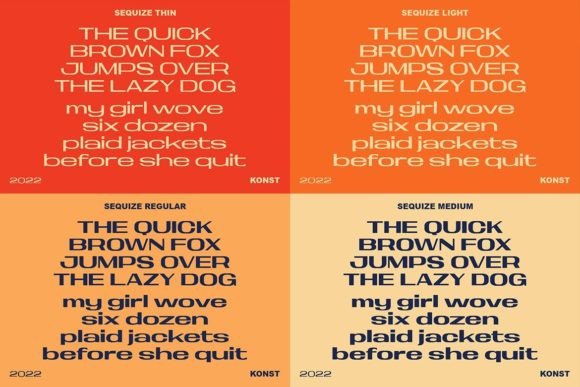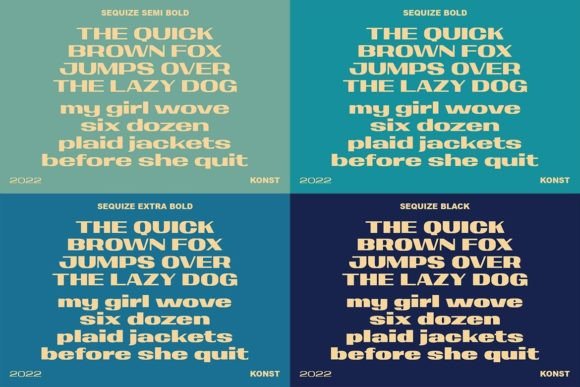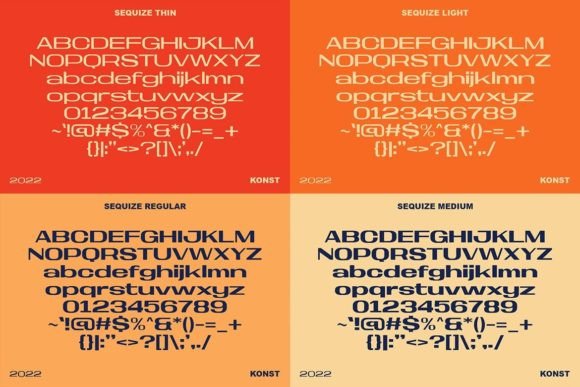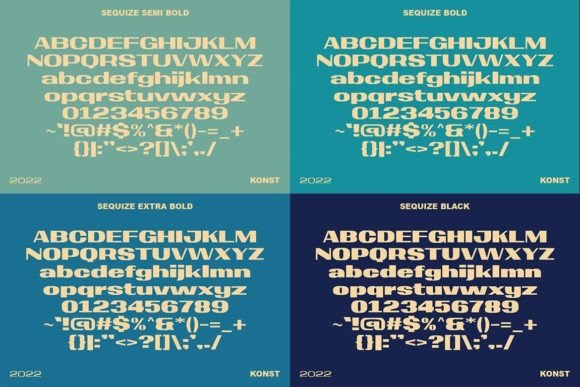
Introduction to Sequize Font
Remember the moment when you spent hours perfecting your design, only to realize that the font was holding it back? That’s exactly why we’re excited to introduce you to the Sequize Font – a modern and cool sans serif font that’s about to revolutionize your design game.
As a valuable design resource, Sequize Font is a high-quality addition to any library, offering endless possibilities for creative projects. With its sleek and sophisticated look, it’s perfect for designs that require a touch of elegance. Whether you’re working on a project with a transparent background or need a font that can stand out on its own, Sequize Font has got you covered.
Key Features of Sequize Font
- Unique and modern font style with a transparent background, allowing for seamless integration into designs.
- Perfect for designers and artists working on projects that require a modern and creative touch.
Honest Review: Sequize Font
As a designer, I’m always on the lookout for high-quality design resources to elevate my creative projects. Recently, I had the chance to try out the Sequize Font, and here’s my honest review.
- Unique and elegant design style that’s perfect for modern branding projects
- High-quality glyphs and smooth typography make it ideal for large-scale text
- Transparent background makes it easy to layer and combine with other design elements
- Limited character set, which may not be suitable for languages that require a wide range of characters
Overall, I’m impressed with the Sequize Font’s elegant design and high-quality typography. While it may have some limitations, it’s an excellent choice for designers who want a unique and modern font for their creative projects. Whether you’re working on a branding project or a large-scale text layout, the Sequize Font is definitely worth considering.
Common Use Cases for Sequize Font
The Sequize Font is perfect for a variety of creative projects, including graphic design, digital art, and typography. It’s also great for creating presentations, documents, and social media graphics.
Does the Sequize Font have a transparent background?
No, the Sequize Font does not have a transparent background. It’s a solid, high-quality font designed for use in a variety of creative projects, including logos, branding, and typography. If you need a font with a transparent background, you may want to consider a different design resource.